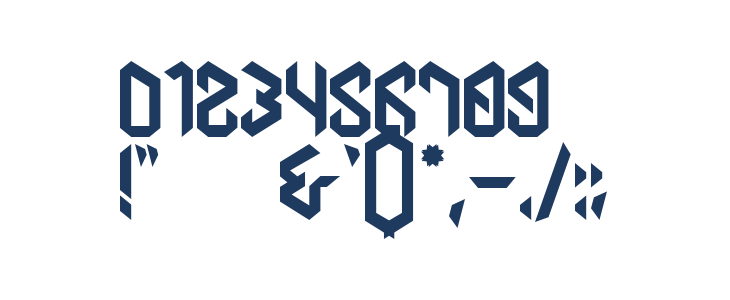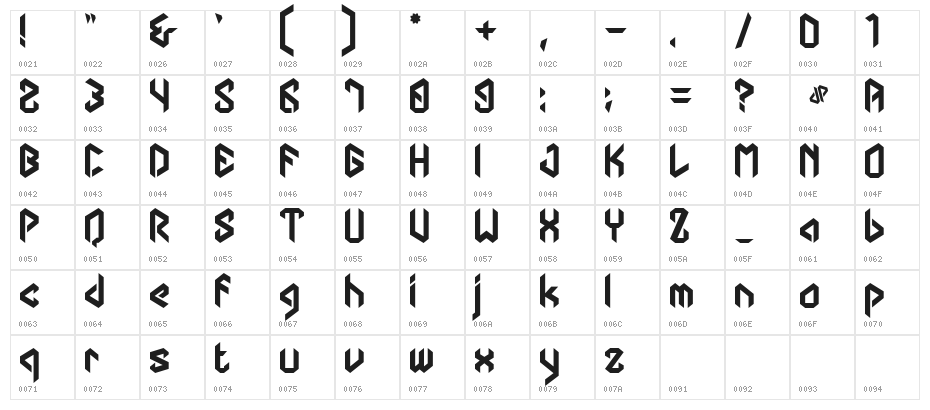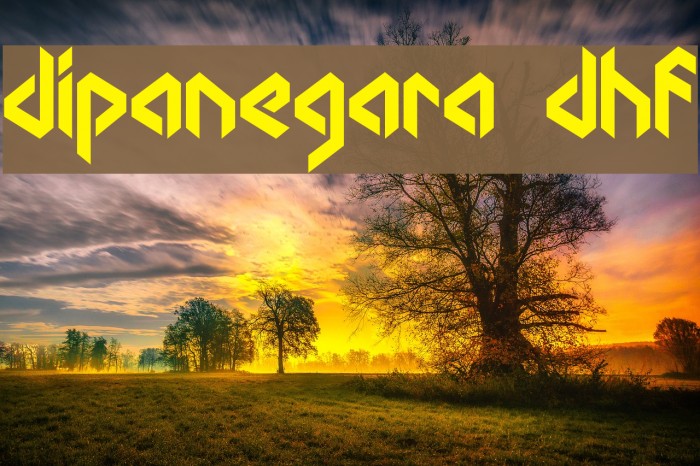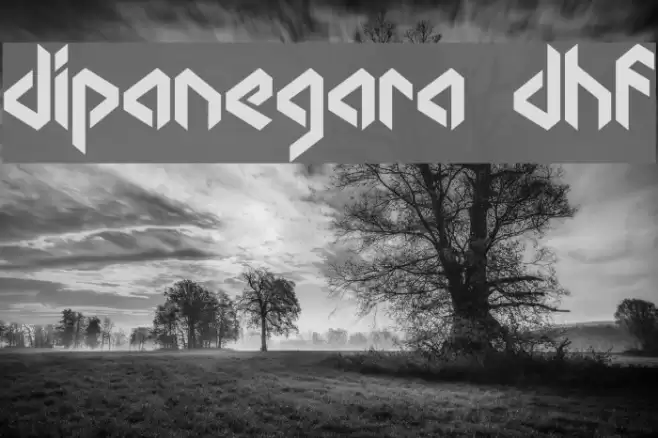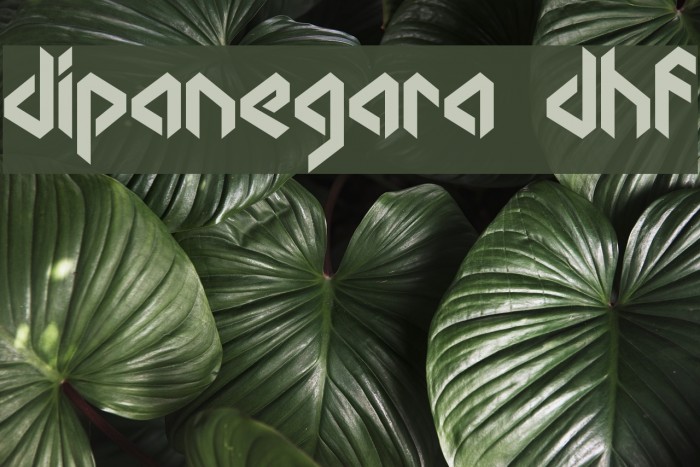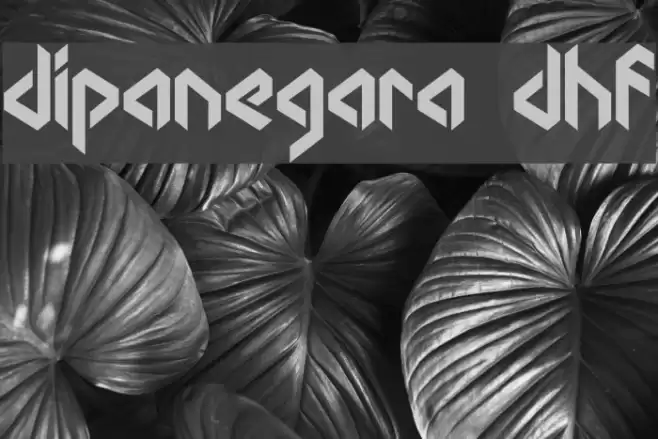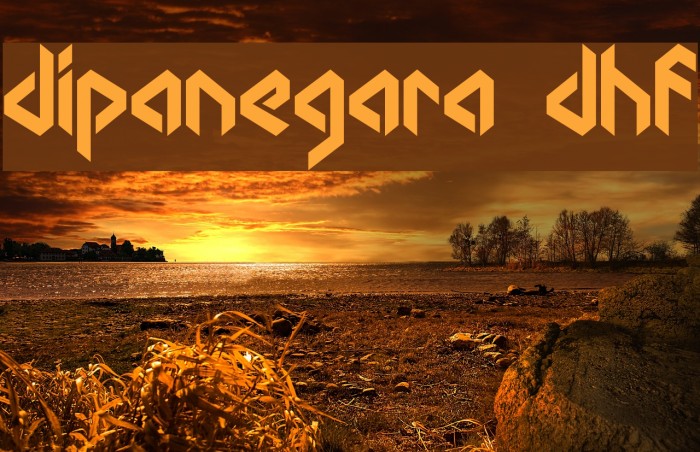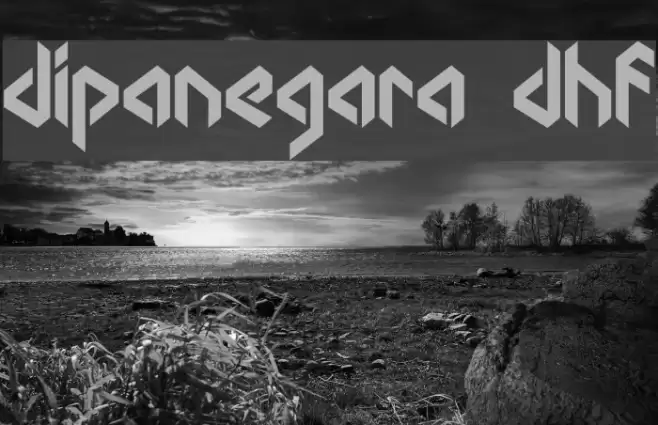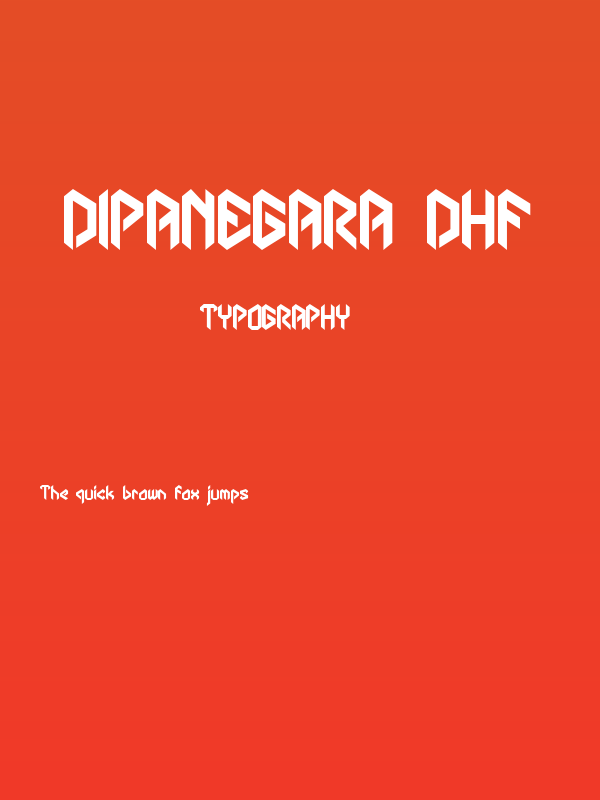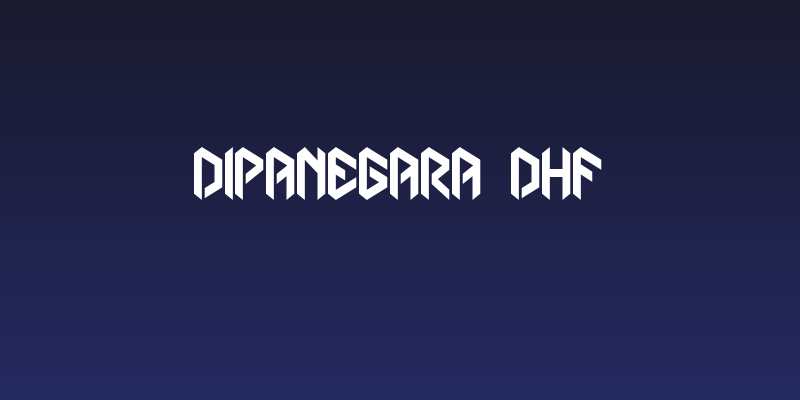
dipanegara dhf Font
dipanegara dhf Description
This font features a bold and angular design, characterized by sharp edges and geometric shapes. The letters are constructed with a consistent thickness, giving it a strong and impactful appearance. The uppercase and lowercase letters maintain a cohesive style, with a slight variation in size and form. Numbers and special characters follow the same angular and bold design, ensuring uniformity across all characters. The overall aesthetic is modern and edgy, making it suitable for projects that require a striking and unconventional look.
| Proposed Projects | Ideal for branding, posters, album covers, and any project needing a modern, edgy look. |